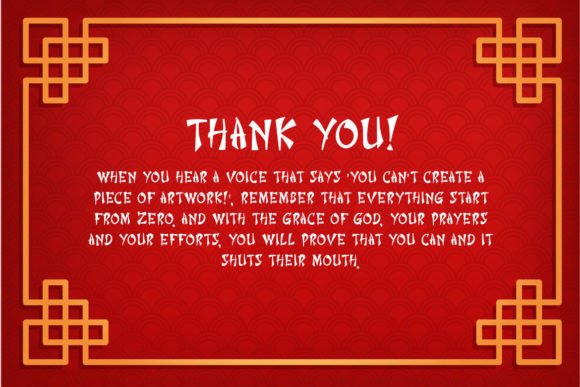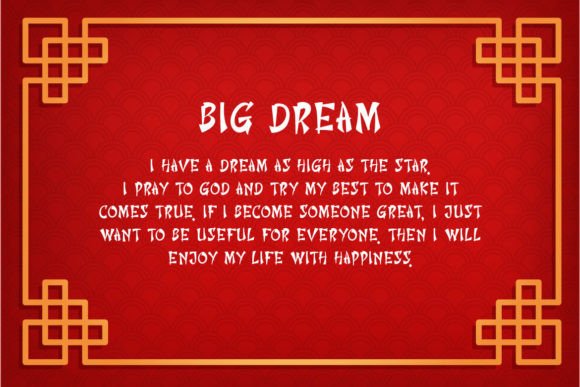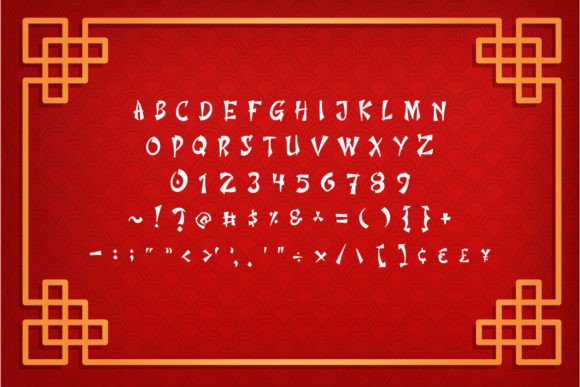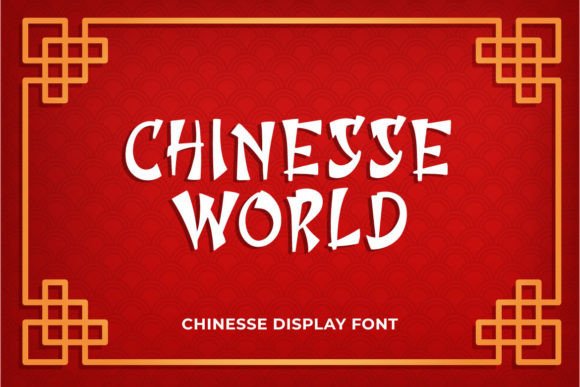
Introducing Chinese World Font: A Unique Blend of Classic Typography and Modern Style
Are you a designer or crafter looking for a font that can add a touch of elegance and sophistication to your projects? Look no further than the Chinese World Font, a cool display font inspired by classic Chinese typography. This versatile font is perfect for a wide range of applications, from flyers and posters to social media posts, logos, and more.
What is Chinese World Font?
Chinese World Font is a display font that draws inspiration from the traditional typography of China. With its unique blend of classic and modern elements, this font is sure to grab attention and add a touch of cultural flair to any design project. Whether you’re looking to create a bold and eye-catching poster or a sophisticated logo, Chinese World Font is the perfect choice.
Key Features of Chinese World Font
- Unique and Elegant Design: Chinese World Font features a distinctive and elegant design that is inspired by classic Chinese typography. The font’s intricate details and bold lines make it perfect for creating eye-catching headlines and titles.
- Highly Versatile: This font is highly versatile and can be used for a wide range of applications, including flyers, posters, social media posts, logos, and more.
- Easy to Read: Despite its intricate design, Chinese World Font is easy to read and understand, making it perfect for use in body text as well as headlines.
Uses of Chinese World Font
Chinese World Font is a highly versatile font that can be used for a wide range of applications, including:
- Flyers and Posters: Create eye-catching flyers and posters that grab attention and communicate your message effectively.
- Social Media Posts: Add a touch of elegance and sophistication to your social media posts and stand out from the crowd.
- Logos and Branding: Create a unique and memorable logo that reflects your brand’s personality and values.
- Packaging and Labels: Add a touch of cultural flair to your packaging and labels and make your products stand out on store shelves.
Why Choose Chinese World Font?
There are many reasons why Chinese World Font is the perfect choice for designers and crafters, including:
- Unique Design: Chinese World Font features a unique and elegant design that is sure to grab attention and add a touch of cultural flair to any design project.
- High-Quality: This font is of high quality and is designed to meet the needs of professional designers and crafters.
In conclusion, Chinese World Font is a unique and elegant display font that is inspired by classic Chinese typography. With its highly versatile design and wide range of applications, this font is perfect for designers and crafters looking to add a touch of cultural flair to their projects. Whether you’re creating flyers, posters, social media posts, logos, or more, Chinese World Font is the perfect choice.